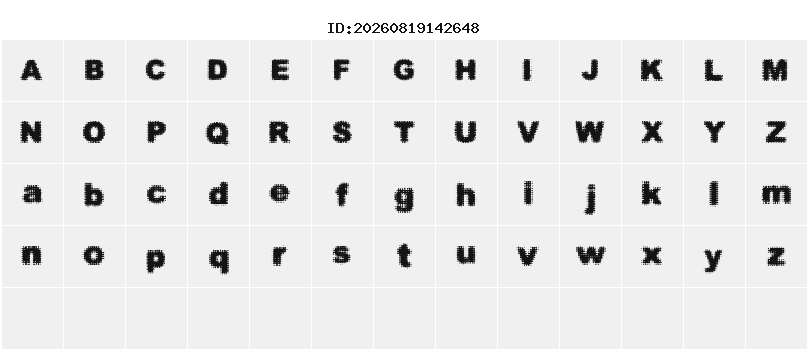
Simple Myopia Preview
• Font Name: Simple Myopia
• Full Font Name: Simple Myopia
• Version: Version 1.00 August 12, 2016, initial release
• Designer: Woodcutter Manero
About Simple Myopia.ttf
Simple Myopia.ttf is a modern, elegant sans-serif font designed for ultimate readability and visual harmony. Perfect for branding, headlines, web design, and print materials.